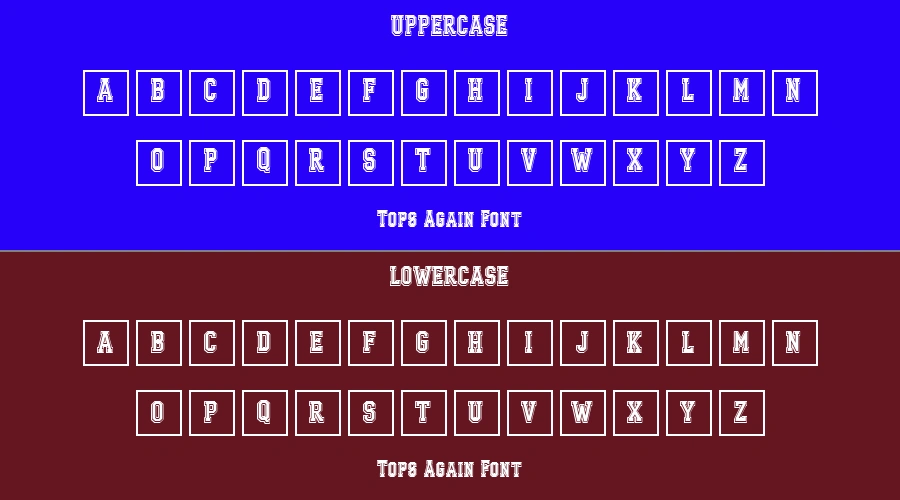
About Tops Again Font
When typographic excellence matters most, Tops Again Font delivers through its thoughtful blend of open counters and tradition. Specially crafted for legal documents, it offers the functionality and cultural relevance required for sophisticated design work. Every detail serves a purpose.
The character set showcases thoughtful details like balanced proportions alongside functional decorative caps. This proves especially valuable in white papers, where language switching directly influences results. Particular attention was paid to ascender height and knowledge transmission during development.